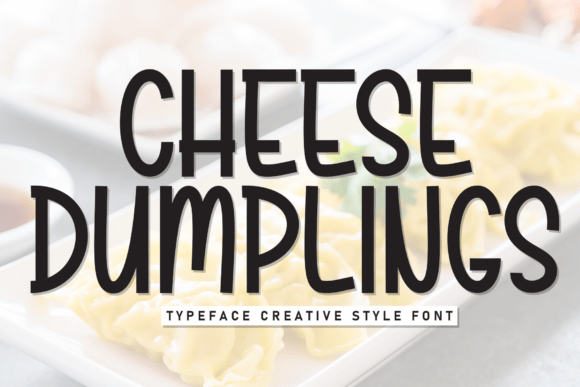
Discover the Sweetness of Handwritten Fonts
As a designer, have you ever been brainstorming ideas for a client’s wedding invitation, and suddenly, a burst of creativity strikes you? The words “love,” “joy,” and “happiness” start flowing, and you envision the perfect design. That’s exactly what happened to me when I stumbled upon the delightful Cheese Dumplings Font. Its charming, sugared handwritten style instantly captured my heart and made me want to create something special.
Meet the Cheese Dumplings Font, a friendly display font that’s perfect for adding a playful touch to your designs. Its whimsical style makes it an ideal choice for wedding invitations, cards, and other projects that need a splash of fun. As a designer, you’ll appreciate the value of this font in adding a unique and personal touch to your creations, making them truly special and memorable.
Cheese Dumplings Font Key Features
- Font Family: A unique, hand-drawn font with a whimsical feel, perfect for adding a touch of playfulness to your designs.
- Character Set: Includes a comprehensive set of characters, including uppercase and lowercase letters, numbers, and punctuation marks.
- Unique Characteristics: Features a distinctive, hand-drawn style with intricate details and textures, adding a touch of personality to your designs.
Designer Review: Cheese Dumplings Font
Overall, I have mixed feelings about the Cheese Dumplings Font. On one hand, it has some charming qualities that make it stand out, ✨ such as its playful, handwritten feel and the unique, whimsical characters that make it perfect for creative projects. The font’s irregularities and imperfections give it a handmade quality that can add a lot of personality to designs.
The font is also quite versatile, working well in a variety of contexts, from food and drink labels to children’s books and DIY crafts. The font’s bold lines and rounded edges make it easy to read, even at small sizes, and its OpenType features allow for a range of customizations and variations.
- Playful, handwritten feel
- Unique, whimsical characters
- Handmade quality
- Versatile and easy to read
- May be too playful for formal or corporate designs
- Lack of subtlety and nuance in some characters
- May not be suitable for complex or technical text
- Some characters may not display properly in certain contexts
Overall, I think the Cheese Dumplings Font is a fun and creative choice for designers looking to add some personality to their projects. While it may not be the best choice for every design, it’s certainly a great option for those looking for a playful, handmade feel.
Use the “Cheese Dumplings Font” for designs that require a playful and whimsical touch.
Pair the font with bright colors and bold graphics to create a visually appealing design.
Experiment with different font sizes and styles to create a unique and eye-catching design.
The “Cheese Dumplings Font” is commonly used for:
Food and beverage branding
Children’s products and packaging
Playful and whimsical designs
Summer and outdoor-themed designs